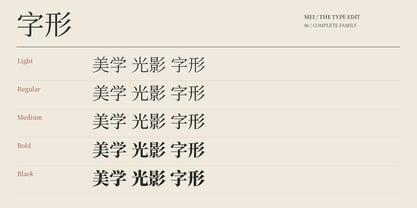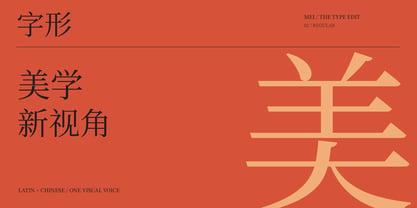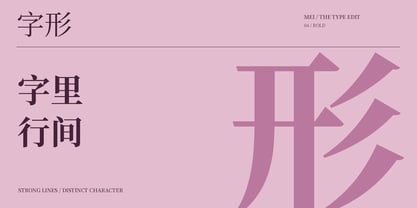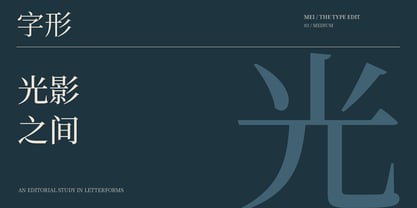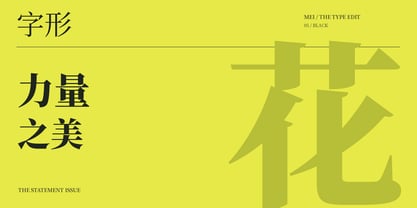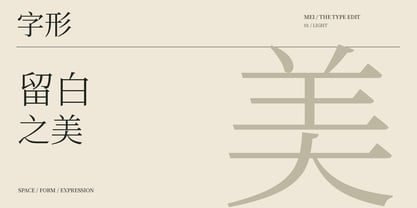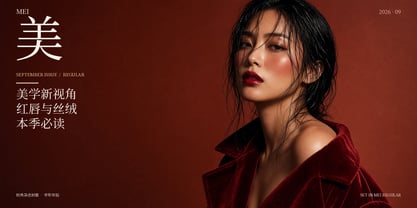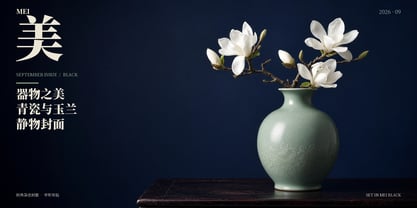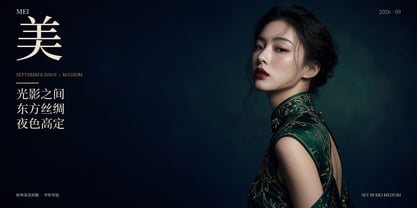
Mei
par MD-Type
La famille de polices Mei a été conçue par Mehmet Dogan et publiée par MD-Type. Mei contient 5 styles et options de package familial. En savoir plus sur cette famille
Mei is a serif typeface family that brings Chinese characters and Latin letterforms together in an expressive editorial style. Contrasting strokes and carefully shaped details give its character forms a distinctive presence in magazine covers, cultural publications, posters and packaging.
The family includes five weights: Light, Regular, Medium, Bold and Black. Light offers a delicate voice for spacious compositions, while Bold and Black bring emphasis to prominent headlines. Regular and Medium provide a balanced middle ground.
Mei’s Chinese character forms take centre stage in oversized typography, while its Latin letters support bilingual layouts. Combine contrasting weights, generous space and large characters to create striking typographic compositions.